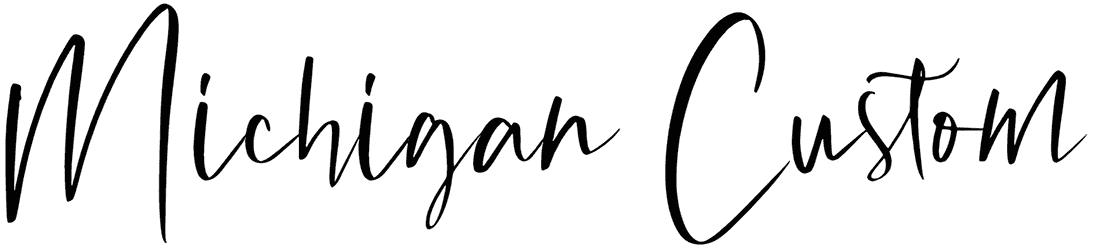
Michigan Custom Font
Finalize your stylish typography by adding Michigan Custom, a stunning script font! This particular font has many interesting features; it offers slim handwritten characters that are creative, and they give your design a unique personality. It is very informal, plus it’s brilliant for invitations, weddings, flyers, photo albums, and greeting cards. Keep in mind that it will give your project positive vibes, especially as it’s elegant.